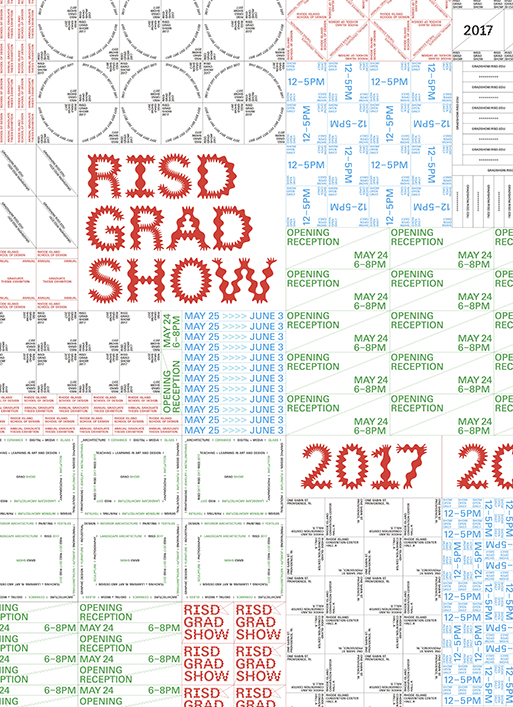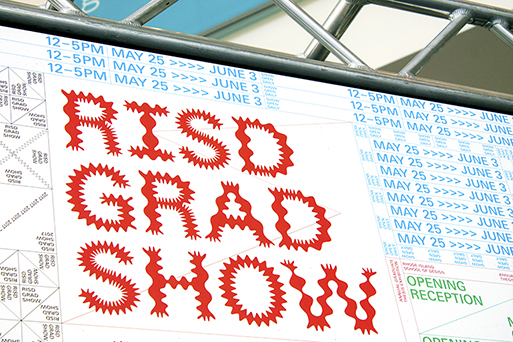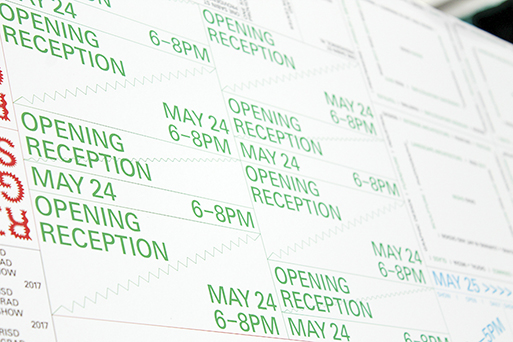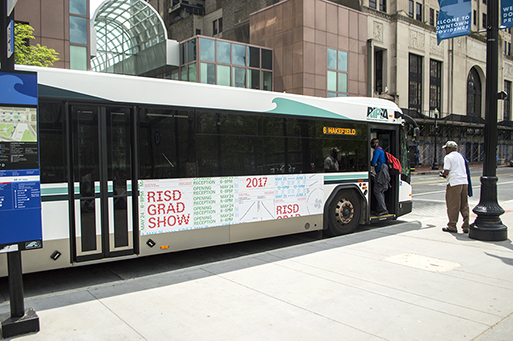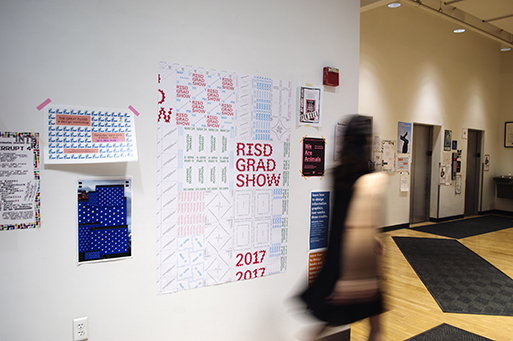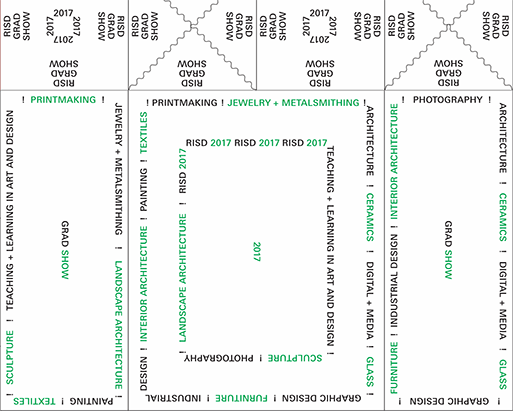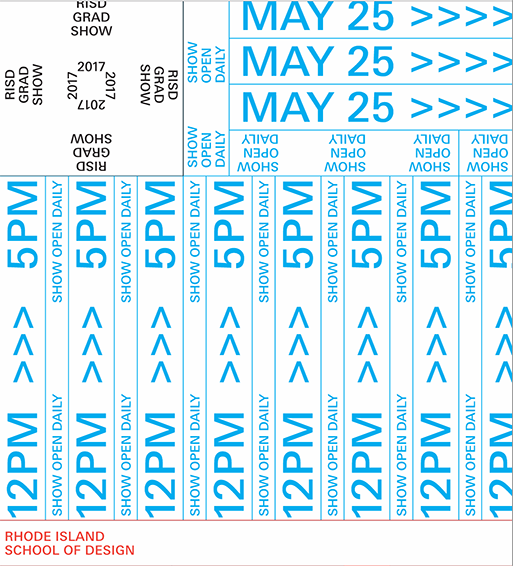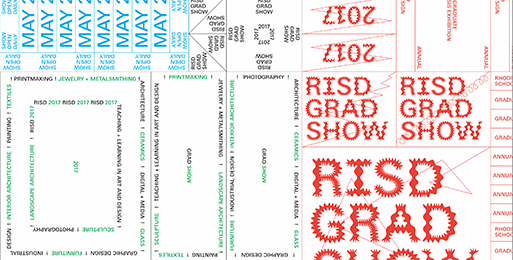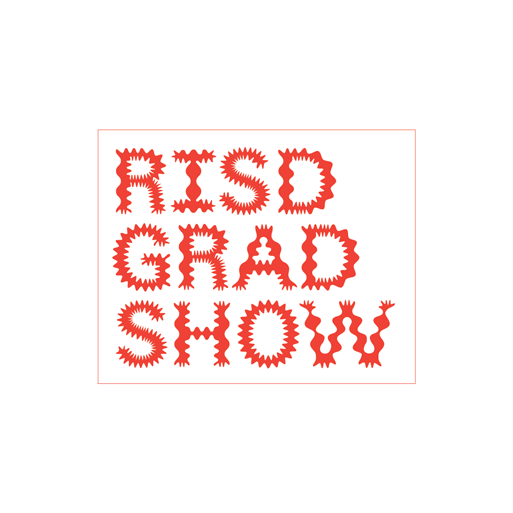
Time to explore RISD’s abstract and playful typographic map
To promote the RISD Grad show 2017, which took place this summer, the site is filled with Univers in a stunning and playful mode.
By repeating information into digital infinity the typography of the site “presents an expansive range of fine art and design work by the 235 students completing master’s degrees at Rhode Island School of Design (RISD) this spring”. Bold and amazing the type experiment will keep you busy for ages.